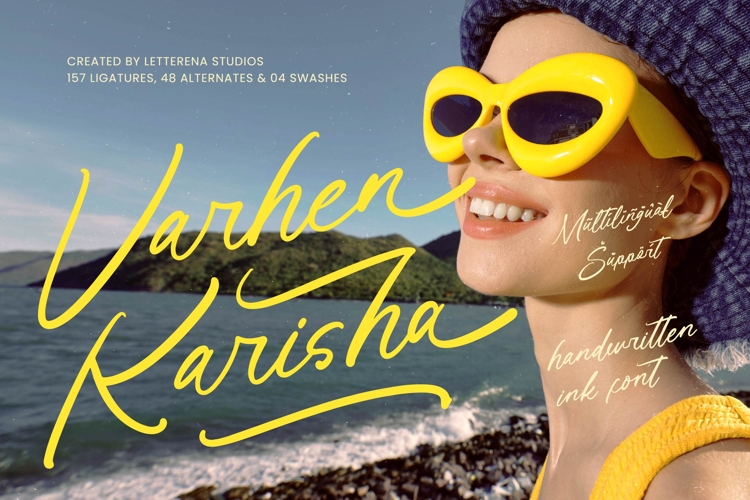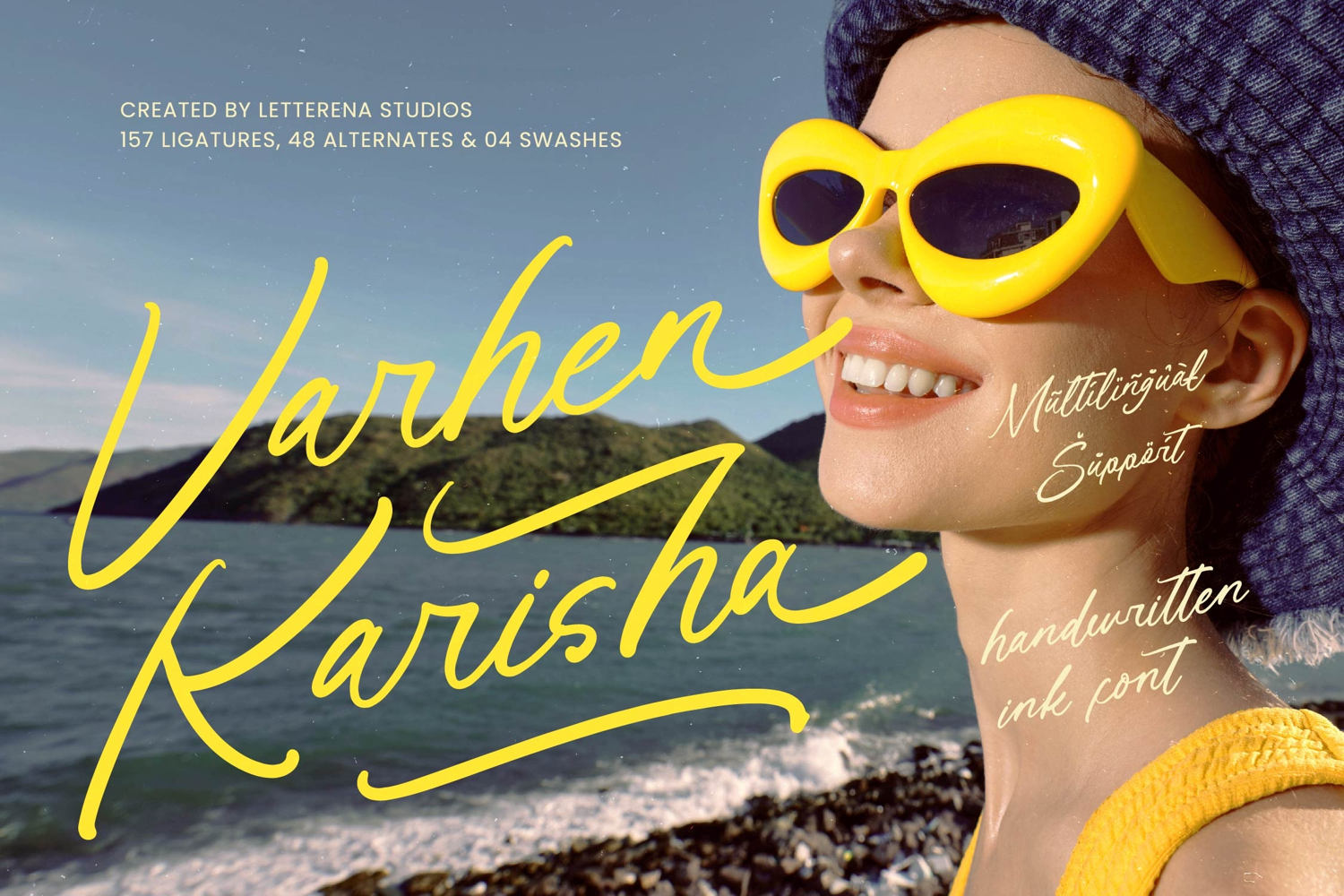
Varhen Karisha - Handwritten Ink Font
Elevate your design projects with the expressive elegance of Varhen Karisha - Handwritten Ink Font. This sophisticated script captures the raw beauty of natural ink strokes, offering a dynamic flow that feels both and professional. With its organic texture and refined calligraphy, it is designed to inject a sense of authentic craftsmanship into every creative composition.
Experience unparalleled creative freedom through an extensive collection of 157 ligatures and 48 alternates built into Varhen Karisha - Handwritten Ink Font. These features allow designers to customize letterforms for a truly bespoke look, while the four included swashes add a finishing touch of artistic flair. Whether you are aiming for a minimalist aesthetic or a bold statement, this font provides the creative flexibility needed to stand out in a competitive marketplace.